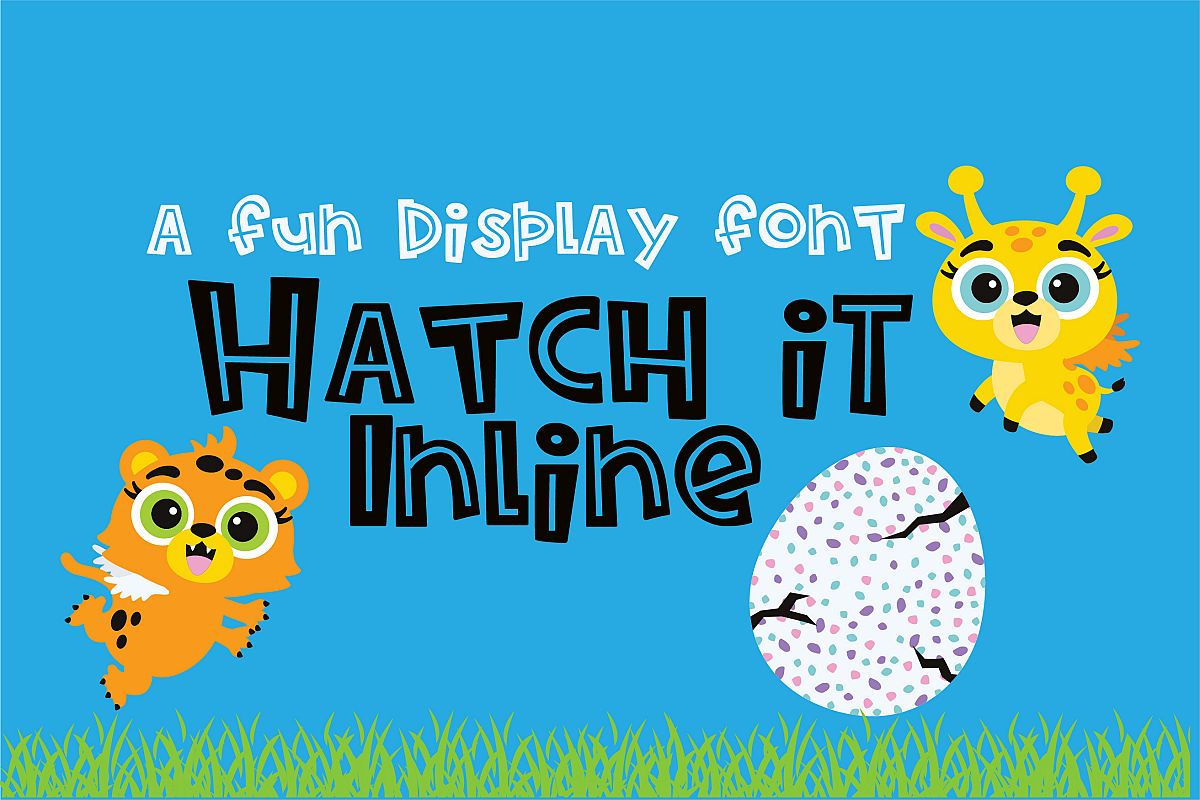
ZP Hatch It Inline
This cute, blocky font has an interior line that is great for adding color. It's a great font for titles, displays, posters, and more.